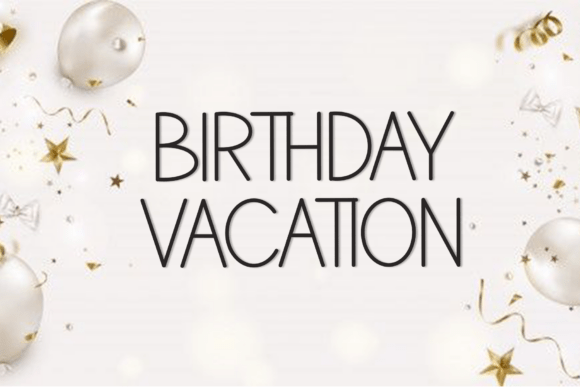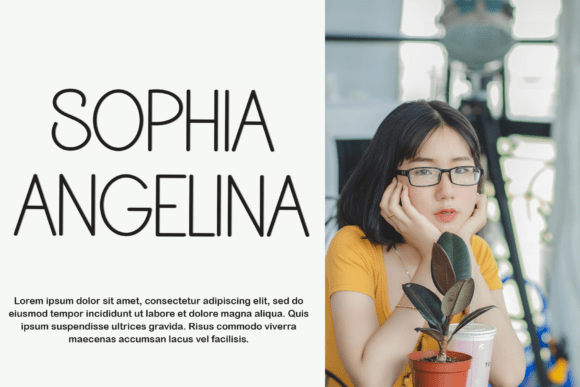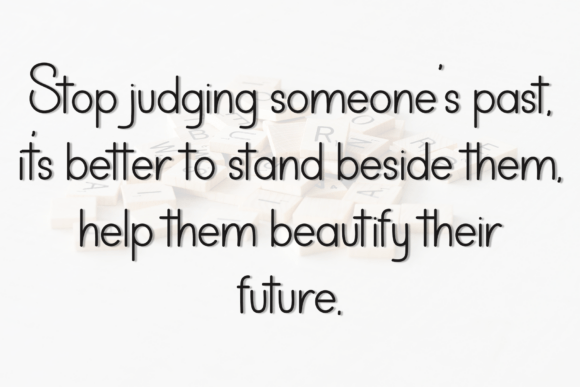
Introduction to Milky Pudding Font
As I sat at my desk, surrounded by scraps of paper, glue sticks, and half-finished projects, I stumbled upon a design that brought a smile to my face. The holiday season was in full swing, and I was on the hunt for the perfect font to add some magic to my greeting cards. That’s when I discovered the enchanting Milky Pudding Font, and I knew I had to share it with fellow designers.
For those who crave high-quality design resources, the Milky Pudding Font is a treasure trove of festive charm. Its whimsical flair and decorative elements make it a perfect fit for creative projects that demand a touch of nostalgia and cheer. Whether you’re working on a holiday-themed project or simply want to add some festive flair to your designs, this font is a valuable asset to have in your arsenal.
Key Features of Milky Pudding Font
- High-quality design for creative projects, ideal for digital artwork and design.
- Features a transparent background, making it easy to use as a design resource for various backgrounds.
- Available in a single font size, with a high resolution of 300 DPI, ensuring crisp and clear text.
- Unique characteristics include a whimsical, hand-drawn style and a wide range of glyphs for various languages.
- Perfect for designers looking for a high-quality, free design resource for their creative projects.
Honest Review: Milky Pudding Font
As a designer, I’m always on the lookout for high-quality fonts to elevate my creative projects. Recently, I stumbled upon the Milky Pudding Font, and I must say, it’s a delightful addition to my design arsenal.
- ✨ Unique design style that adds a touch of whimsy to my projects
- ✨ High-quality font that’s perfect for digital use
- ✨ Transparent background, allowing for seamless integration with any design
- ⚠️ Limited font styles available, which might not be ideal for projects requiring multiple font variations
- ⚠️ Some letters may require manual adjustments for optimal spacing and alignment
Overall, I’m quite impressed with the Milky Pudding Font. Its playful design and high-quality execution make it a great addition to any designer’s toolkit. While it may have some limitations, I believe it’s a valuable resource that’s worth exploring.
For the best results, use the Milky Pudding Font with a transparent background to create a clean and professional design. Experiment with different font sizes and styles to add visual interest to your project.
The Milky Pudding Font is commonly used in creative projects such as logo design, branding, and typography-based artwork. Its high-quality design and transparent background make it a versatile design resource for various applications.